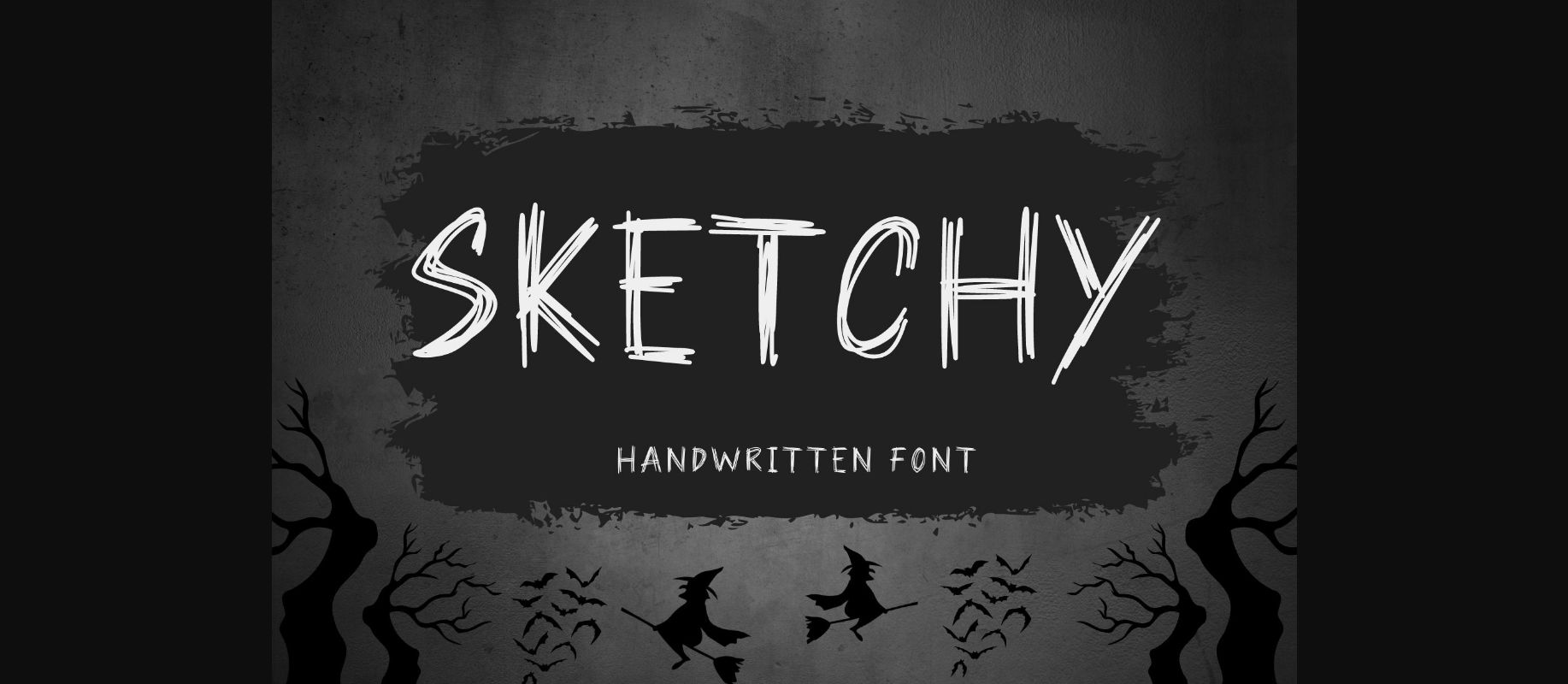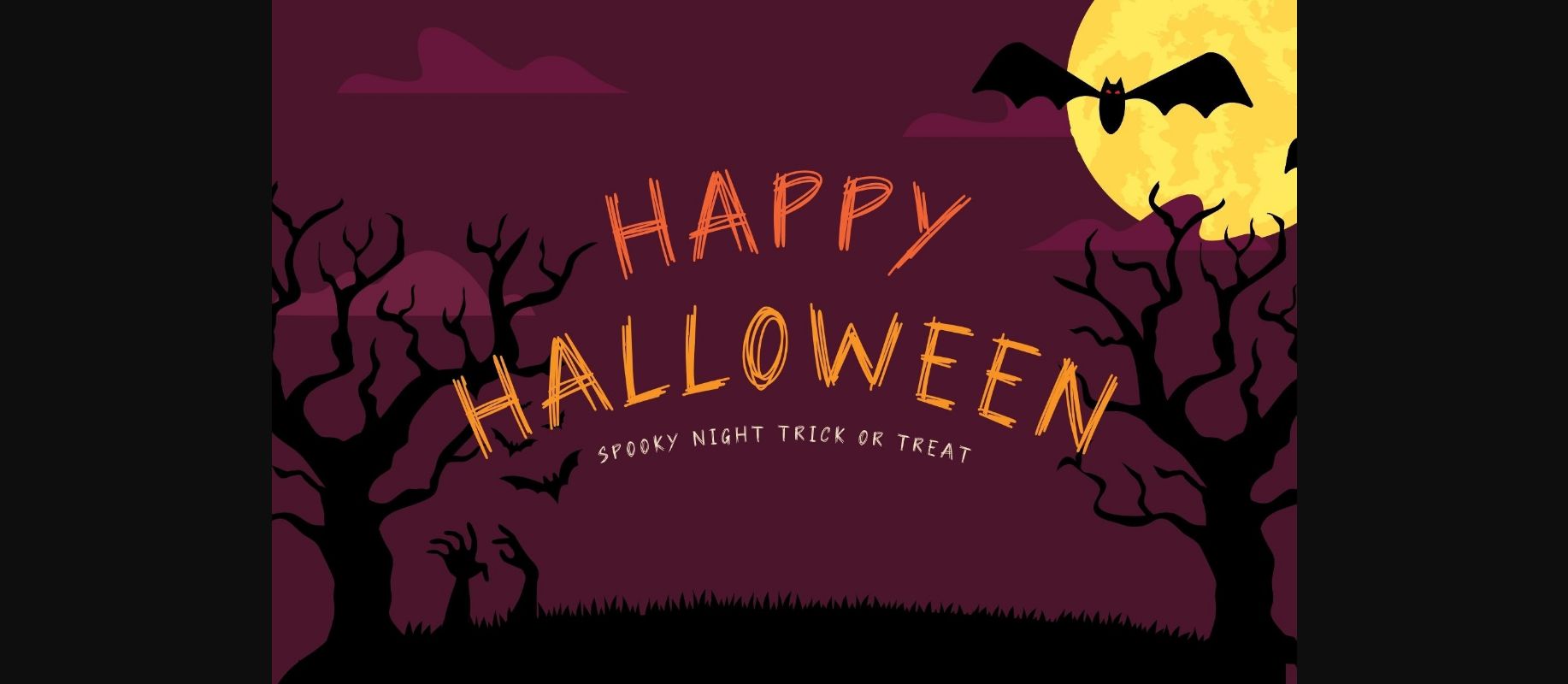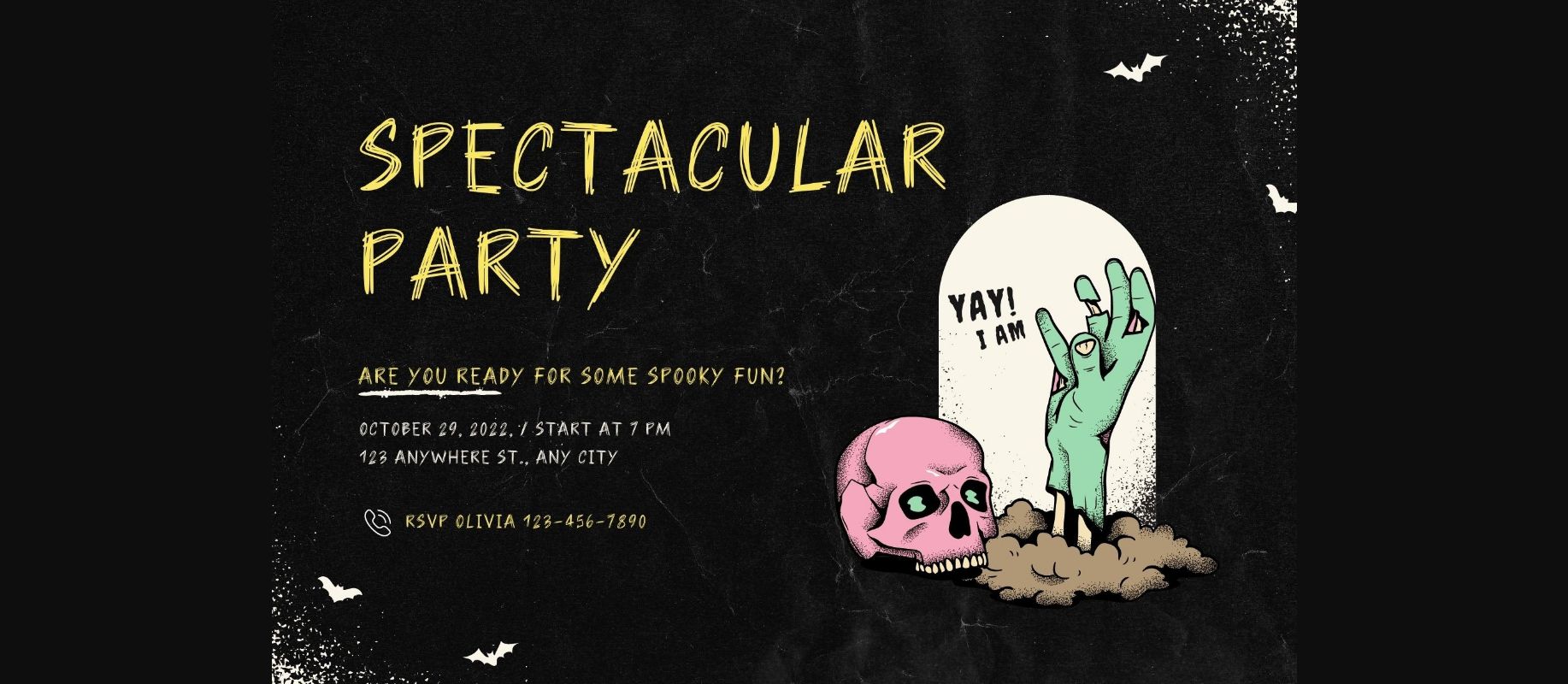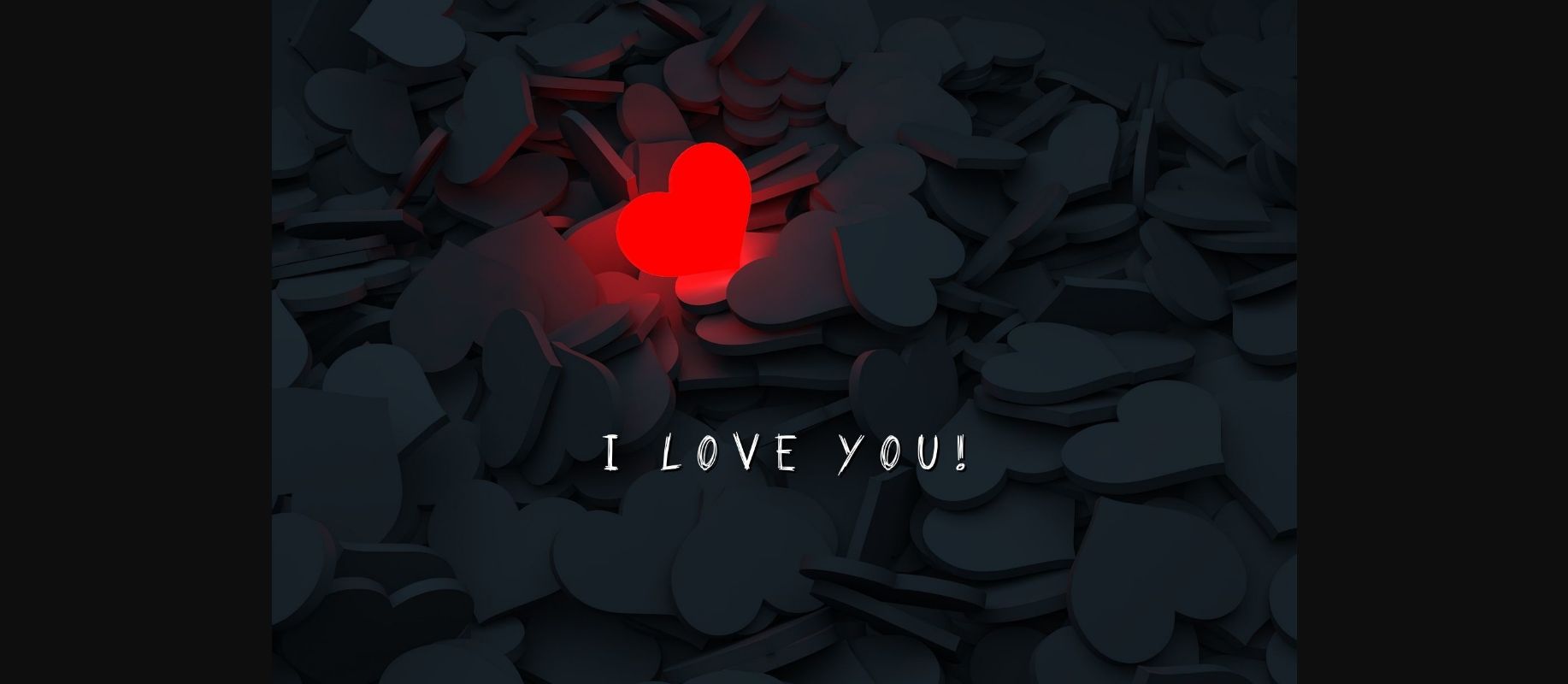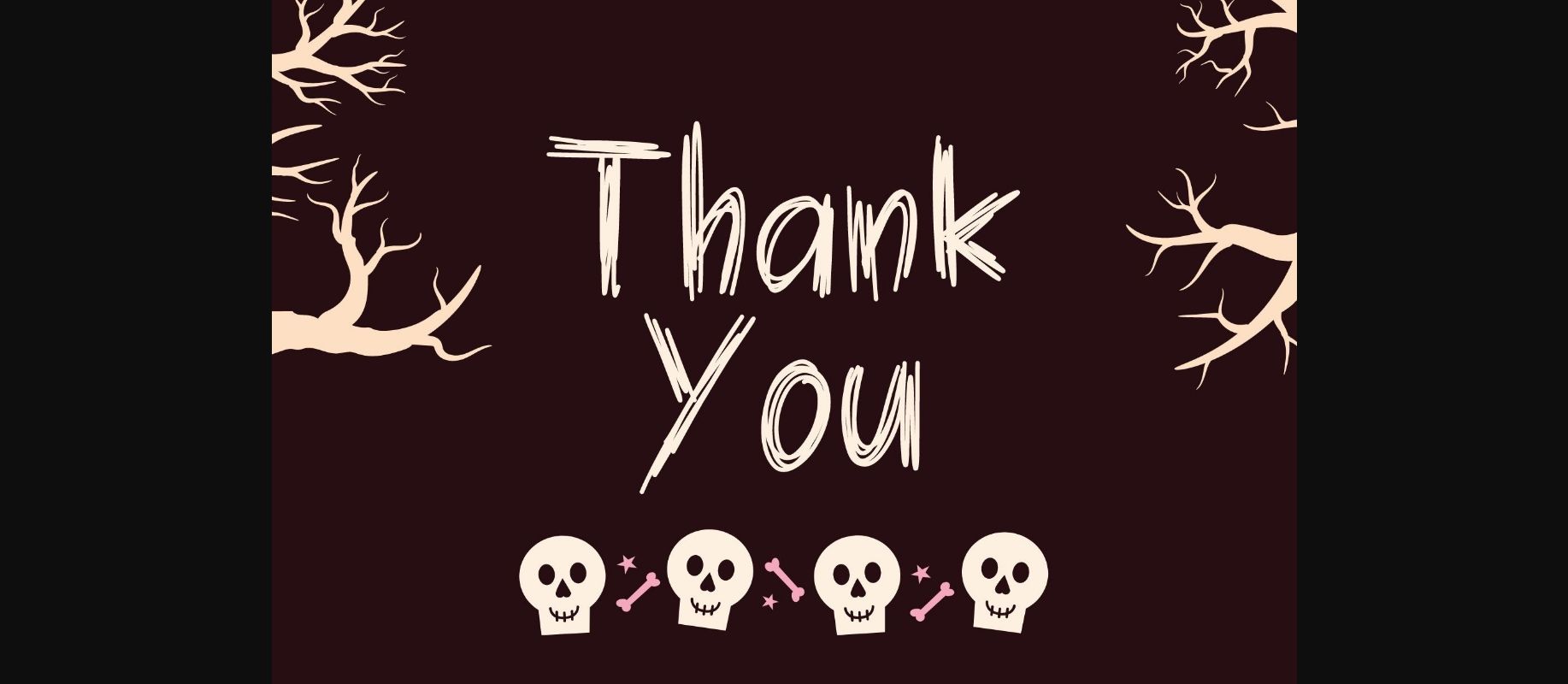
Sketchy Font
About Sketchy Font
Introducing Sketchy Font, a captivating decorative typeface that breathes life into your designs. Inspired by whimsical hand-drawn sketches, this font adds a playful touch to any project. Its unique and artistic strokes will infuse your creations with creativity and charm, leaving a lasting impression. Let imagination flow with Sketchy Font.